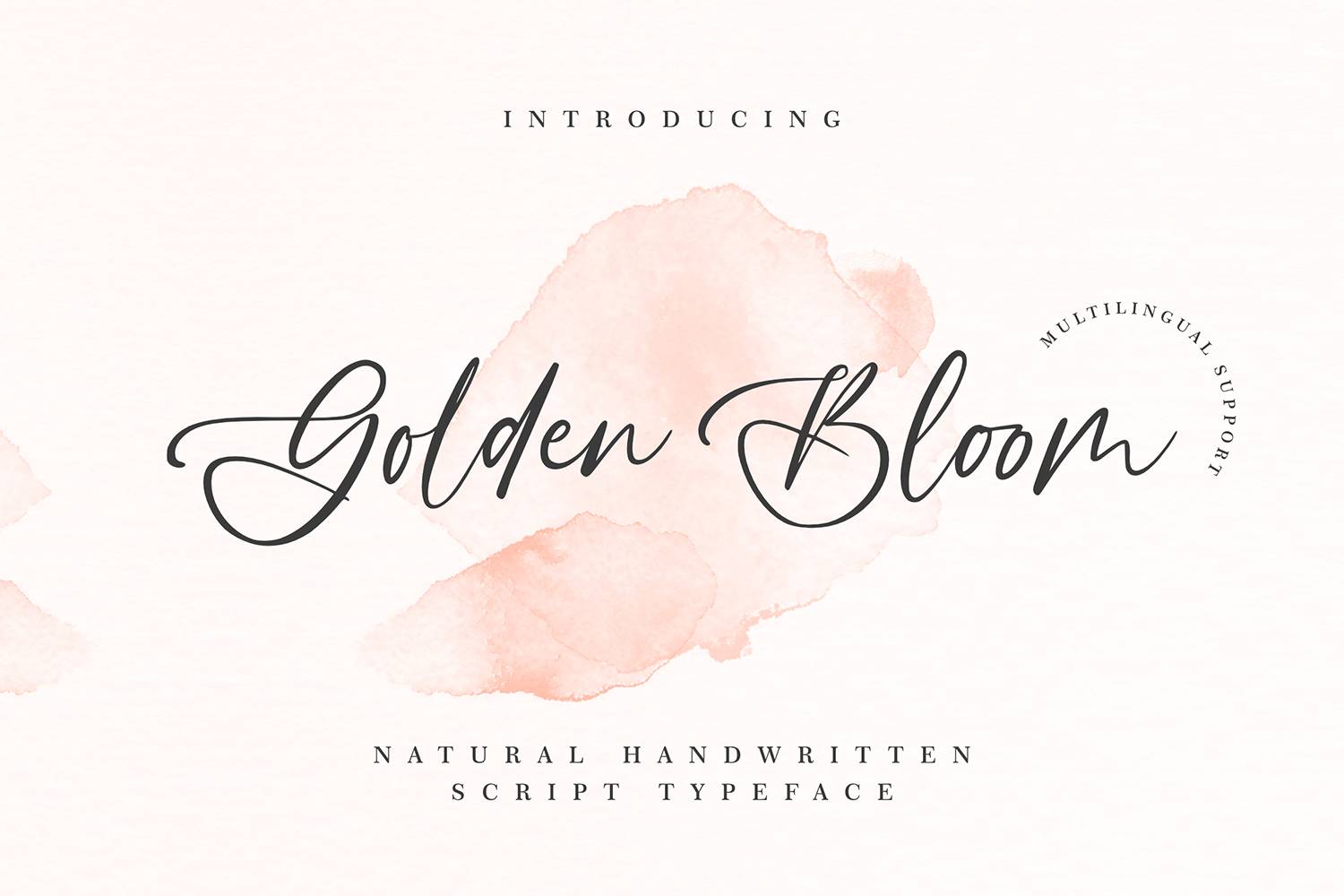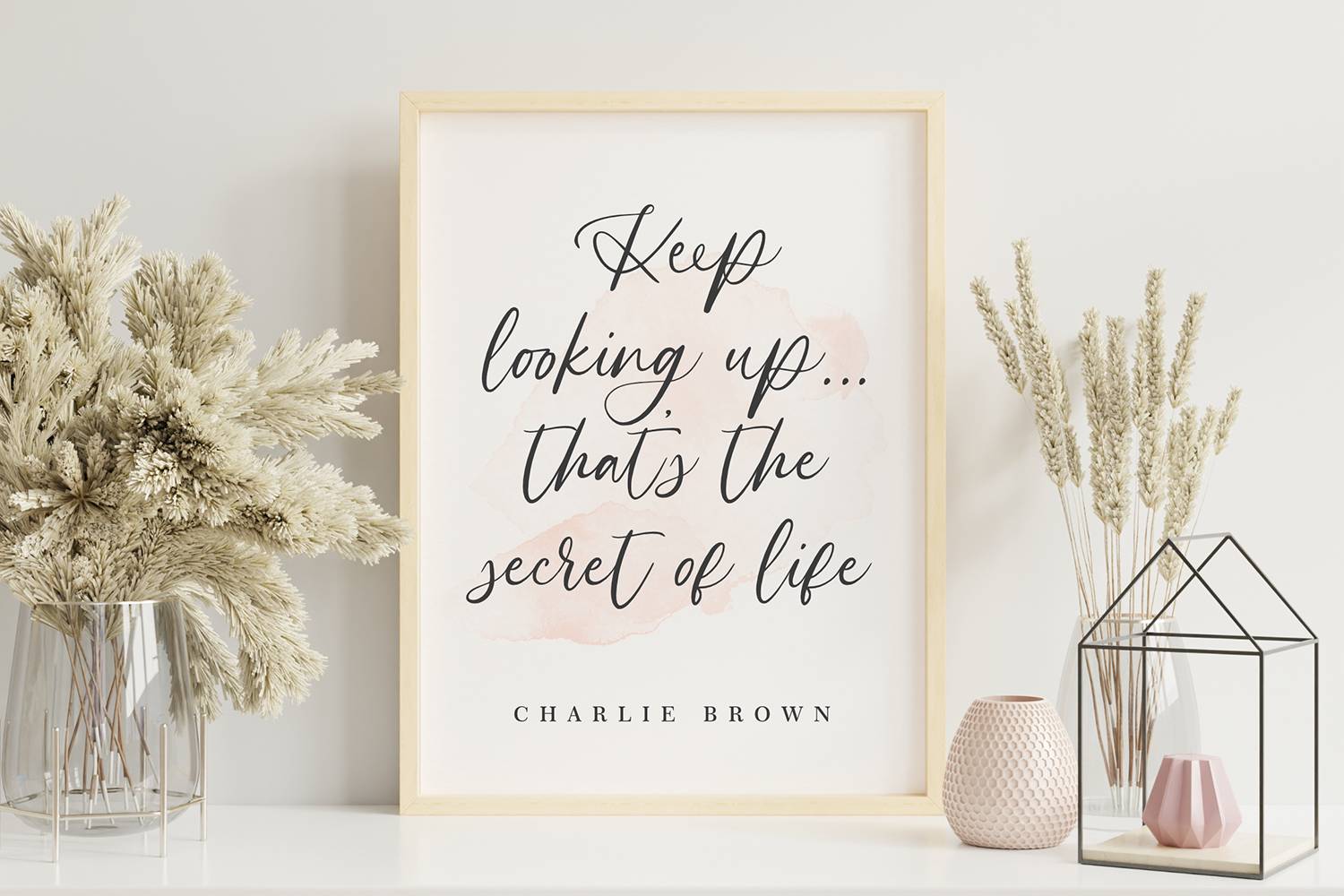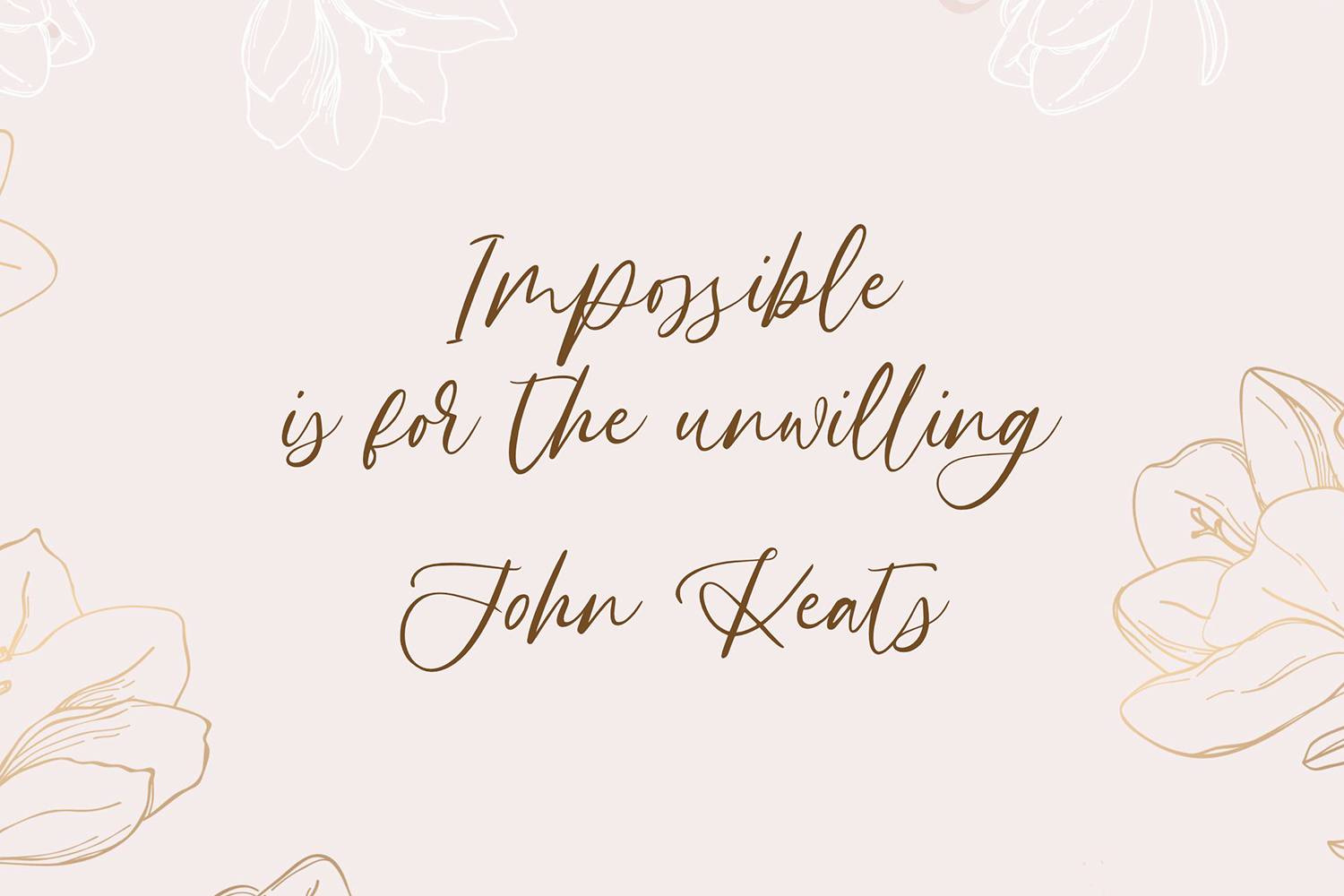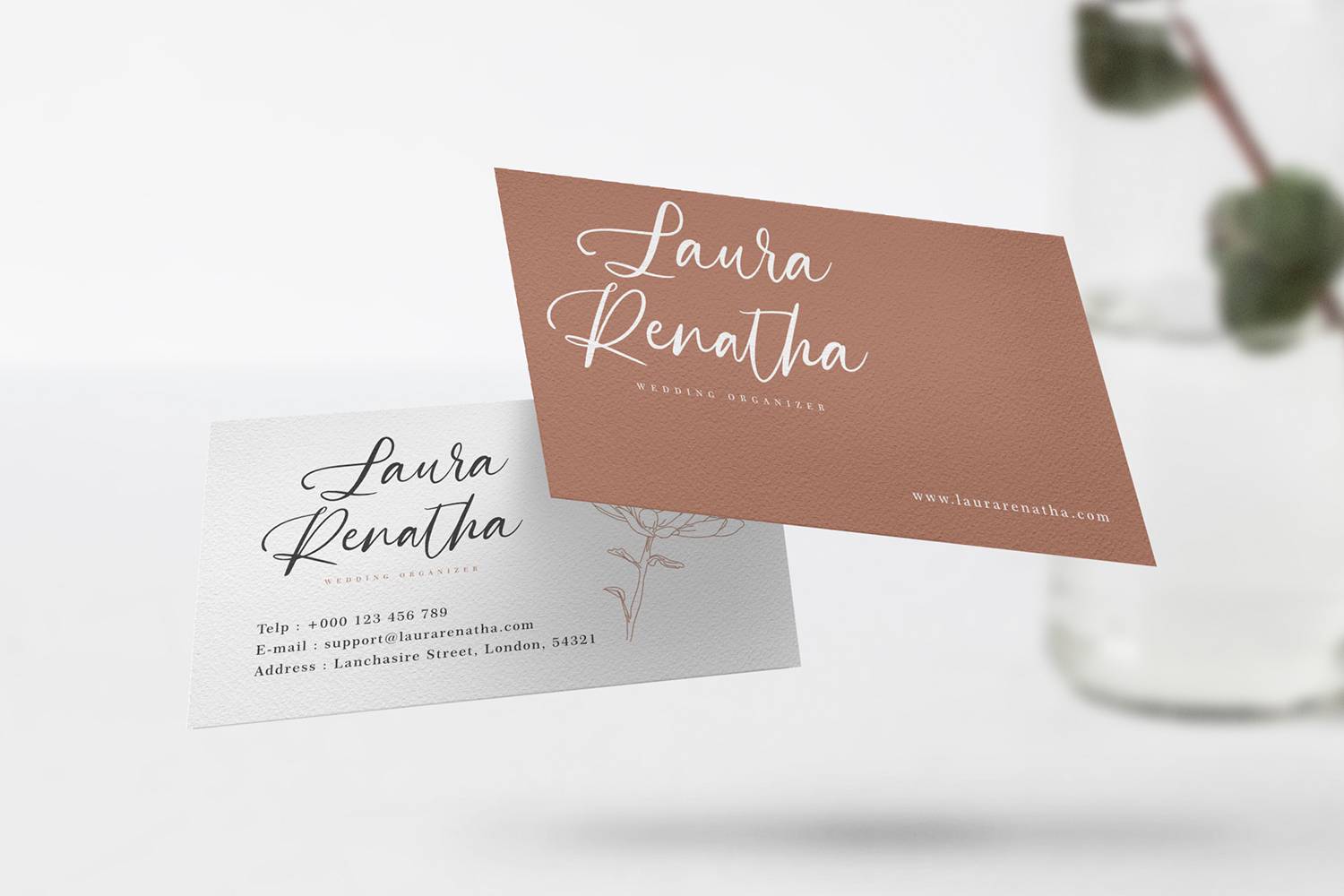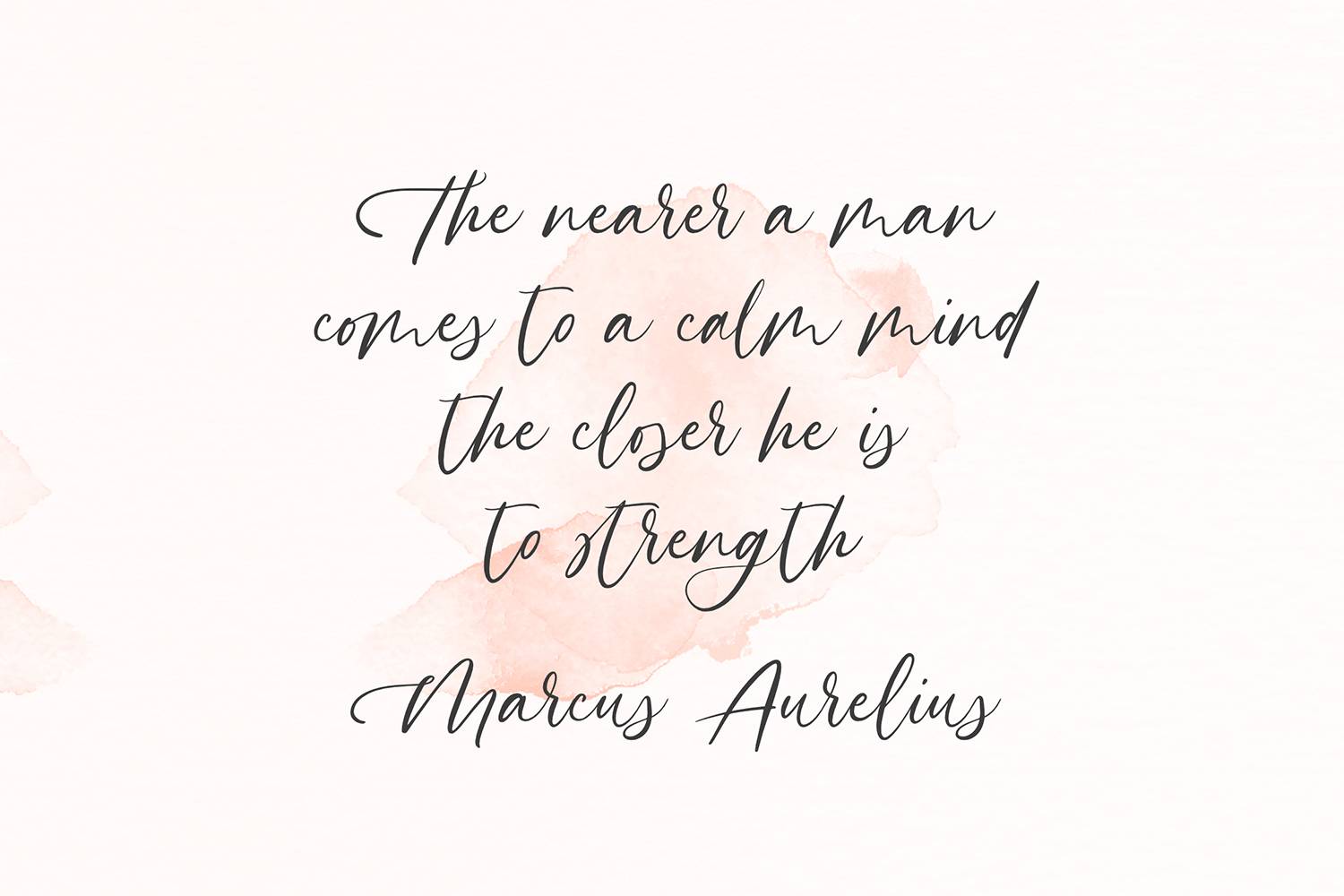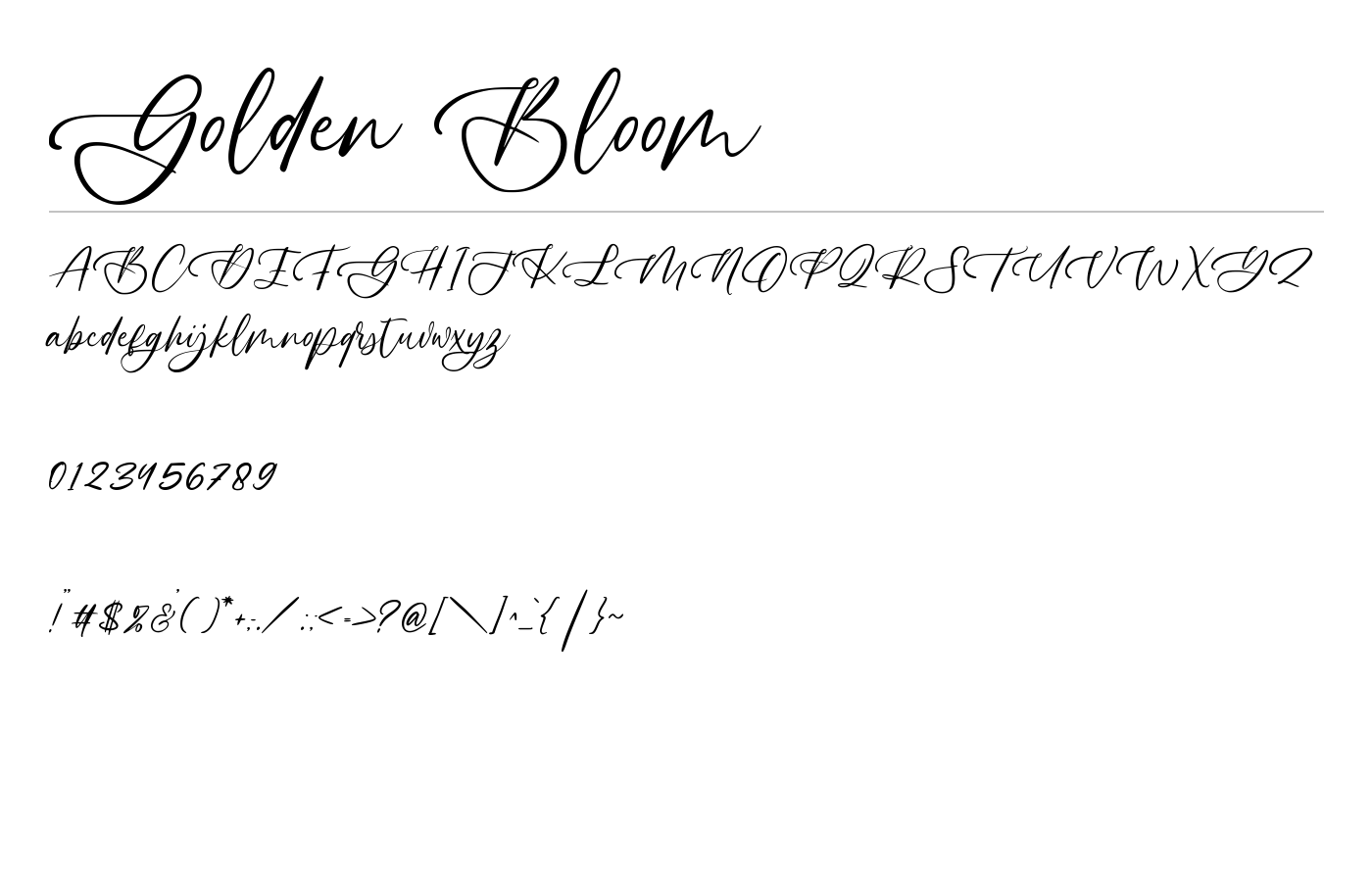
Golden Bloom is an elegant and delicate script font with a hand-lettered, calligraphic style characterized by fluid strokes and graceful swashes. Its light weight and refined curves make it ideal for sophisticated branding, wedding invitations, and luxury packaging where a romantic and stylish touch is desired. This font's airy, decorative letterforms bring a sense of elegance and charm, perfect for headlines or display use rather than long body text.
Golden Bloom Font
About Golden Bloom Font
| Font family | Golden Bloom Font |
| Release date | 2021-11-01 |
| Designer | Ardian Nuvianto |